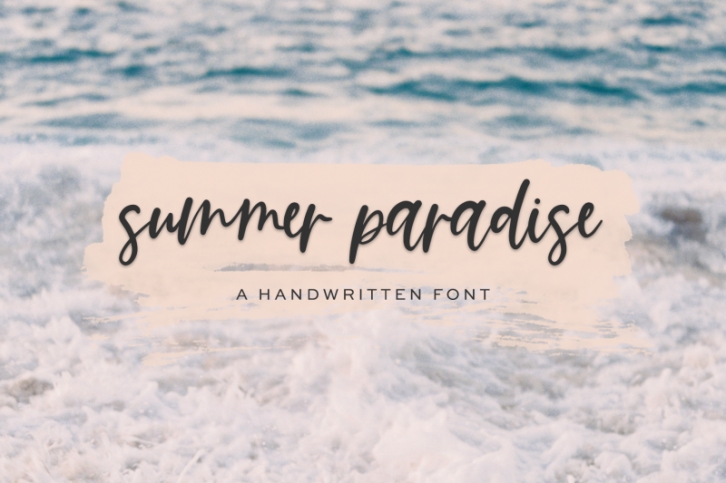
Introducing Summer Paradise Script, a handwritten signature style font. This stylish font features a messy, casual look and ligatures to enhance the flow of the handwriting look & feel of your project!
Summer Paradise Script is best for:
- logos + branding
- website design + website accents - think travel blogs, fashion blogs, & more
- clean print design, like magazines + flyers
- header elements that need handwritten touch
- quote graphics for social media
- 10 ligatures - bb, dd, gg, mm, nn, oo, pp, rr, ss, tt